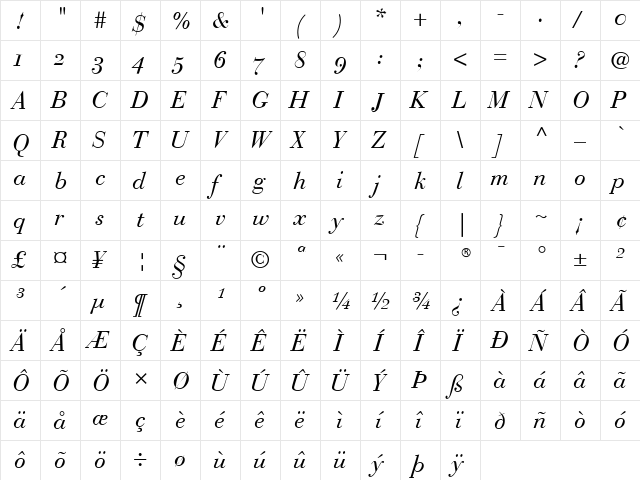
BauerBodoni RomanOsF Italic
Design Context for BauerBodoni RomanOsF Typeface
BauerBodoni RomanOsF takes a measured approach to typography — its balanced proportions and neutral character make it a reliable workhorse for both digital and print work. Its italic angle brings a sense of urgency and motion to the letterforms.
Pro Tip: Use BauerBodoni RomanOsF for emphasis, pull quotes, and subheadings where its slanted energy can add rhythm to the layout.